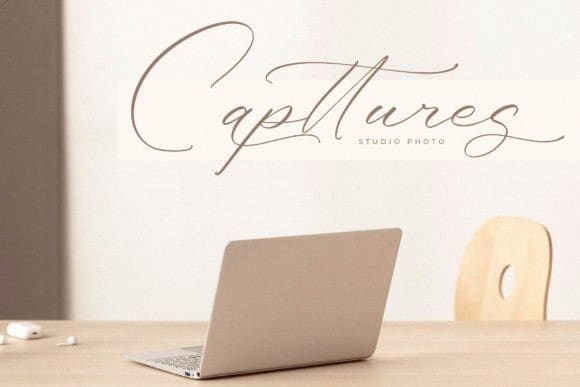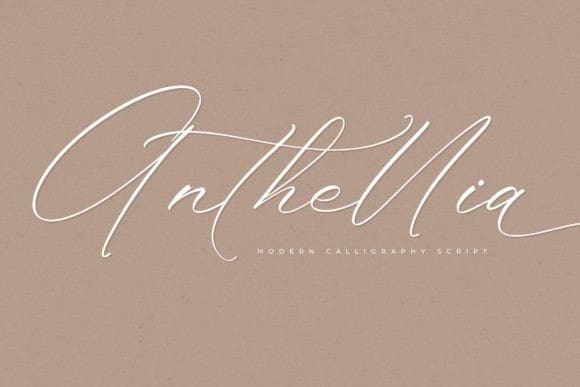
Anthellia Script Font
Anthellia Script Font – Modern Calligraphy Script , created by Storytype, A luxury script that has own unique style & modern look.